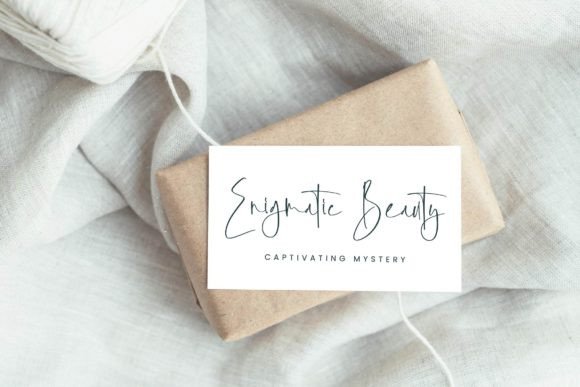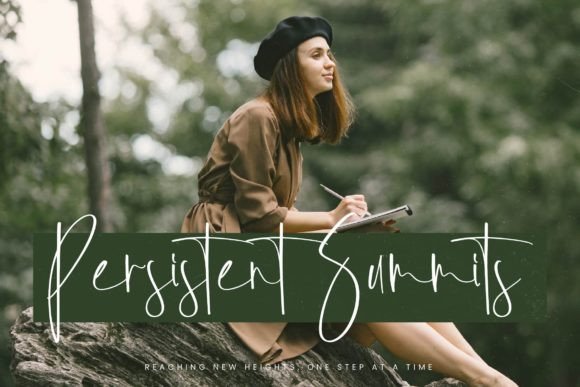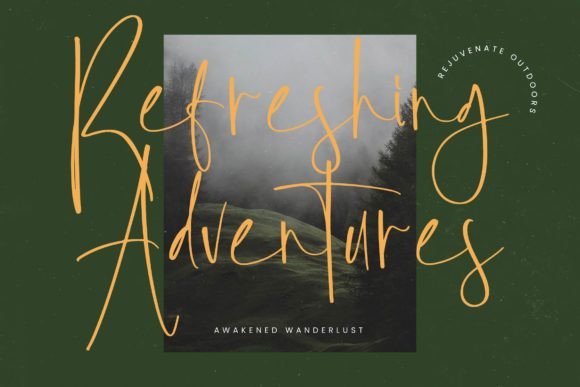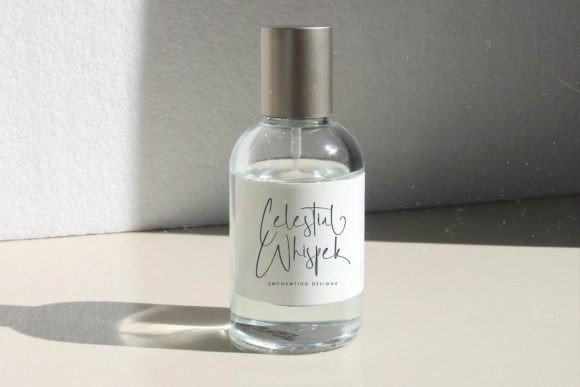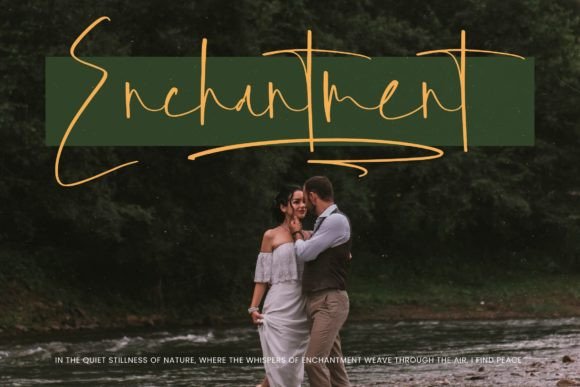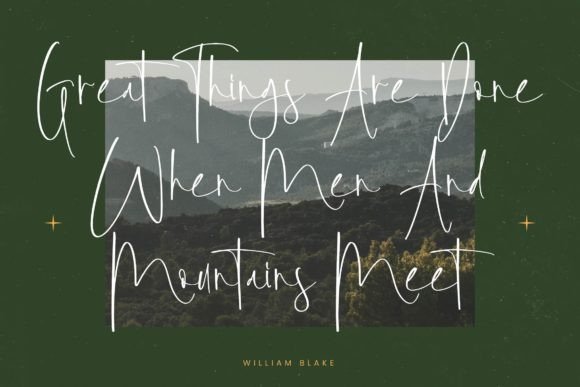
Introducing Foresta Heights Font: Elevate Your Designs with Luxury Script Style
In the world of design, fonts play a crucial role in conveying the tone and aesthetic of a project. For designers and crafters looking to add a touch of luxury and sophistication to their work, the Foresta Heights Font is an exceptional choice. This stunning script font, crafted by Letterena, is versatile and can be used across a wide range of projects, from logos and branding to packaging, posters, and more.
What is Foresta Heights Font?
Foresta Heights Font is a luxury script font that exudes elegance and style. Its freestyle design makes it highly adaptable, allowing it to be used in various contexts. Whether you’re working on a high-end branding project, a beautiful wedding invitation, or a stylish product label, Foresta Heights is sure to make a statement.
Key Features of Foresta Heights Font
- Luxury Script Style: Foresta Heights boasts a luxurious script style that adds a touch of sophistication to any design.
- Versatility: This font is incredibly versatile and can be used for a wide range of projects, including logos, branding, homeware designs, product packaging, and more.
- Easy to Read: Despite its elegant and cursive nature, Foresta Heights remains easy to read, making it perfect for both headlines and body text.
- Unique and Distinctive: The font’s unique and distinctive style ensures that your designs stand out from the crowd.
Use Cases for Foresta Heights Font
The possibilities are endless when it comes to using Foresta Heights Font. Here are some of the many projects where this font can shine:
- Logos and Branding: Create a memorable brand identity with a logo that uses Foresta Heights, perfect for luxury brands, boutiques, and high-end services.
- Product Packaging: Elevate your product packaging with a font that screams luxury and quality.
- Invitations and Greeting Cards: Make your invitations, greeting cards, and wedding announcements truly special with this elegant script font.
- Posters and Flyers: Grab attention with stylish posters and flyers that use Foresta Heights for headings or body text.
- Digital and Print Media: Use Foresta Heights in your digital content, such as blog headers, social media graphics, and print materials like brochures and catalogs.
Why Choose Foresta Heights Font?
With so many fonts available, why choose Foresta Heights? Here are a few compelling reasons:
- Unique Style: Foresta Heights offers a unique style that can set your designs apart.
- High Versatility: Its versatility means you can use it across various projects, making it a valuable addition to your font library.
- Professional and Elegant: The font’s professional and elegant look makes it suitable for high-end projects and clients.
How to Use Foresta Heights Font Effectively
To get the most out of Foresta Heights Font, consider the following tips:
- Pair with Complementary Fonts: Pair Foresta Heights with simpler, sans-serif fonts for body text to create contrast and improve readability.
- Adjust Letter Spacing: For headings, consider adjusting the letter spacing to make the text stand out even more.
- Use in Moderation: While Foresta Heights is beautiful, using it in moderation can make it more impactful. Use it for headings or key phrases to draw attention.